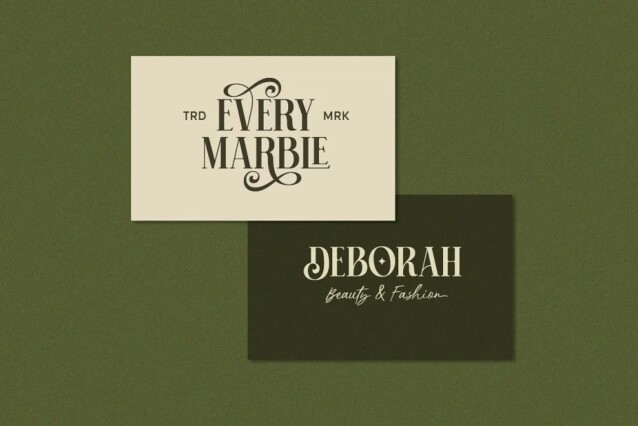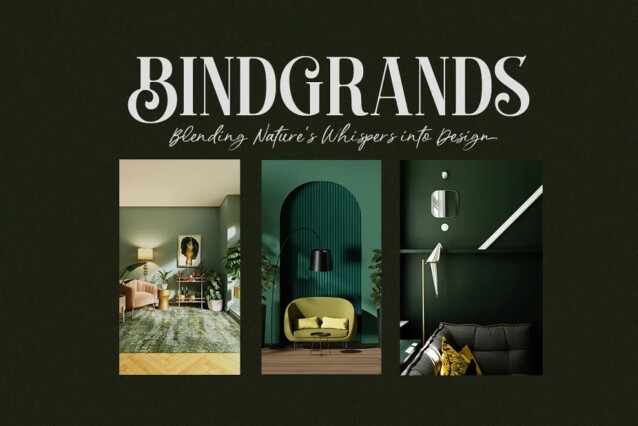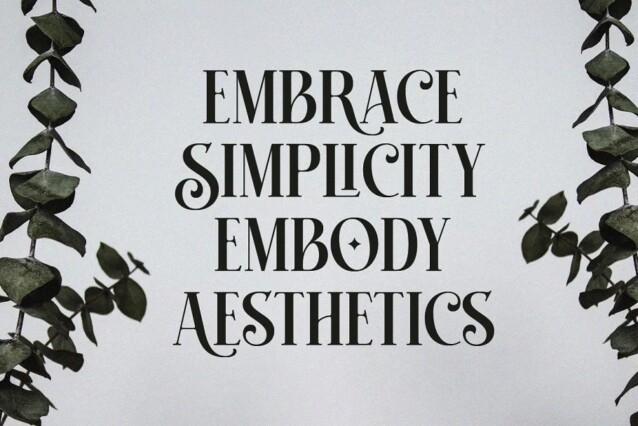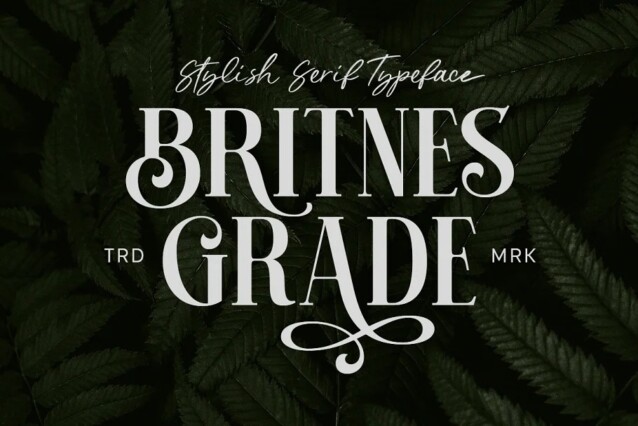
Britnes Grade Font
Britnes Grade Font is a display serif font crafted & designed by Letterhend Studio. Inspired from oldstyle serif with a high contrast letterforms, the characteristic of the typeface is flamboyant and fit for fashion theme. he clean and neat of a serif combined with the swirl swashes makes this font one of a kind!
This font perfectly made to be applied especially in logo, and the other various formal forms such as invitations, labels, logos, magazines, books, greeting / wedding cards, packaging, fashion, make up, stationery, novels, labels or any type of advertising purpose.